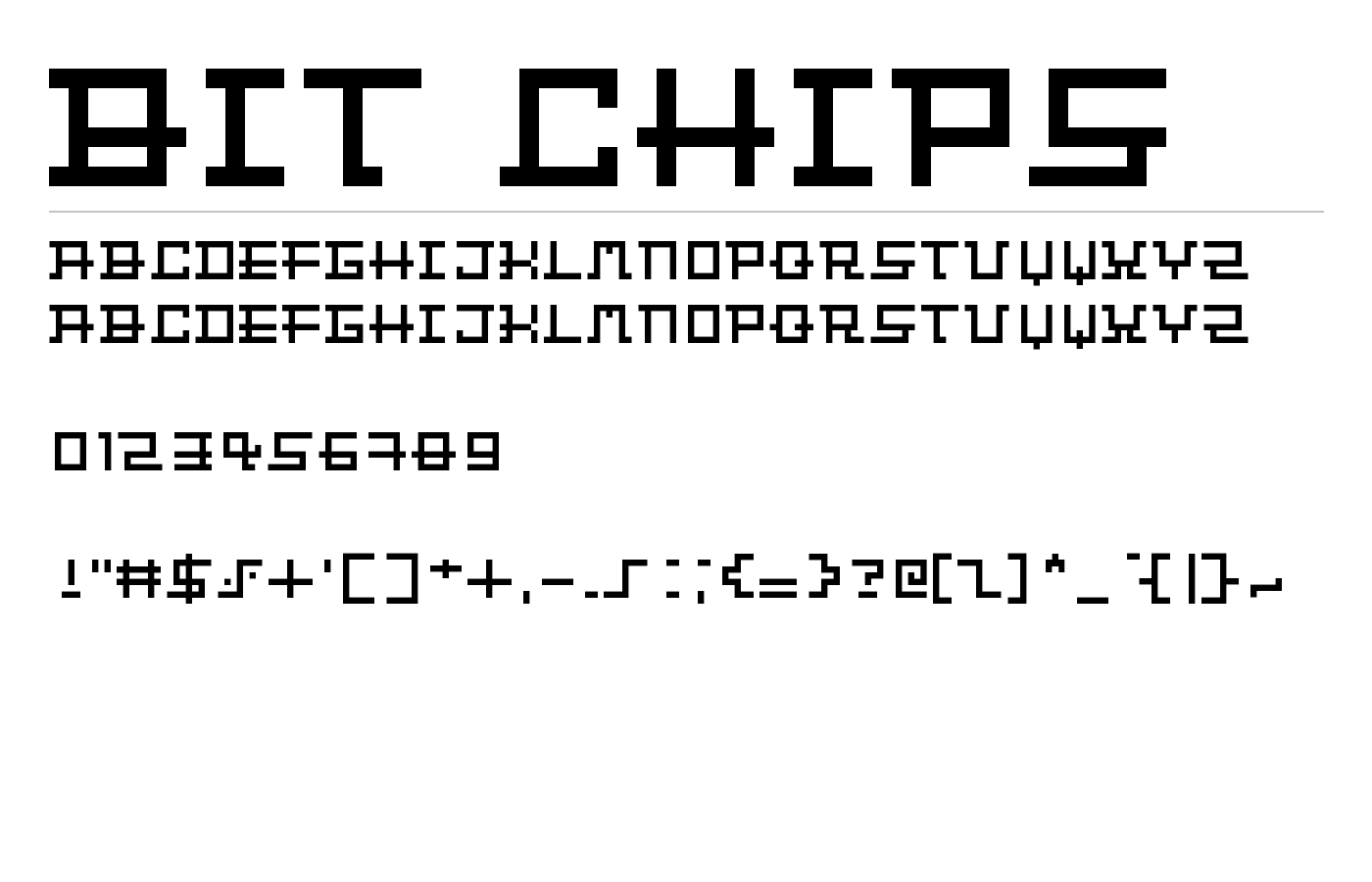
Bit Chips is a bold, futuristic pixel-style sans serif font with a tech-inspired, blocky design that evokes digital screens and retro computer graphics. Its monospaced, geometric letterforms and sharp edges give it a strong, modern feel, perfect for projects related to gaming, technology, or digital branding where a distinctive, tech-savvy look is desired. This font works great for headlines, logos, and displays that need to stand out with a clean yet gritty digital vibe.
Bit Chips Font
About Bit Chips Font
| Font family | Bit Chips Font |
| Designer | Darrell Flood |